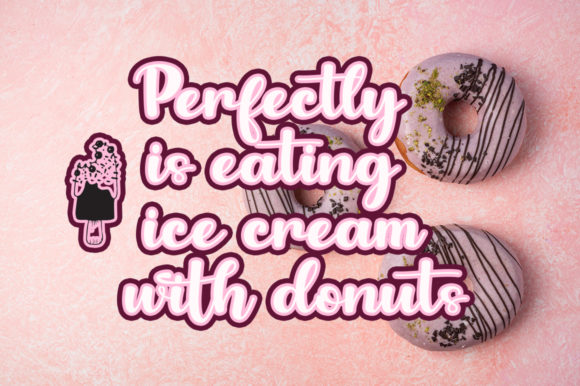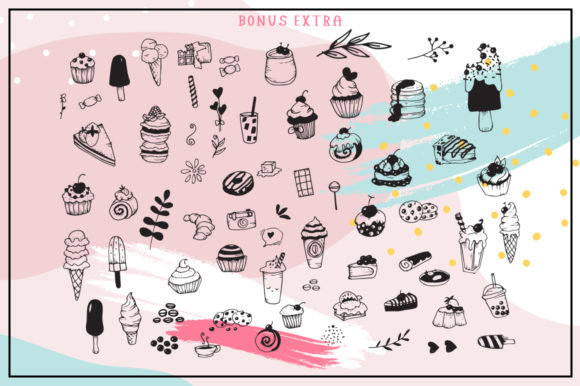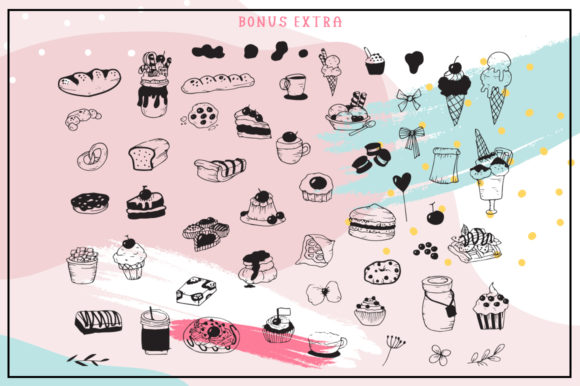
Introduction to Popsicle Chocolate Font
Popsicle Chocolate is a superb duo styled handwritten font with cute dessert elements.
👤 Author Fadlilah Studio
Simple and easy to use, this font will be very beautiful if you mix it with your various craft designs This font is PUA encoded which means you can access all of the glyphs and swashes with ease.
Key Features of Popsicle Chocolate Font